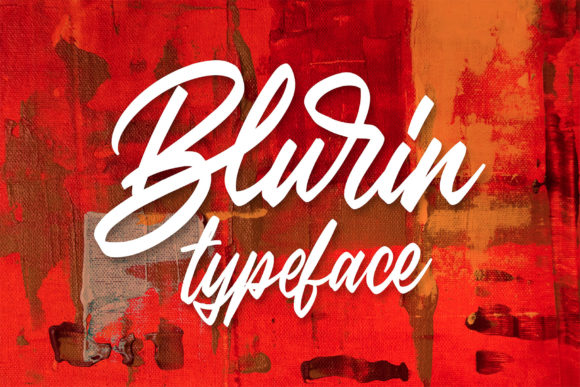
The Blurin Font: A Designer’s New Best Friend
I’ll never forget the struggle I faced while working on a wedding invitation project. My client wanted a font that was both elegant and modern, but I just couldn’t seem to find the perfect fit. That was until I stumbled upon the Blurin font. With its gorgeous handwritten style and classy calligraphic influences, it quickly became my go-to choice. In this article, I’ll share my love for Blurin, its features, and how to make the most of it in your designs.
An Honest Review of Blurin Font
What I Love About Blurin ✨
• 💫 Beautifully crafted handwritten style with a touch of sophistication
• ✅ Highly versatile and suitable for various design projects, from wedding invitations to branding materials
• 🔥 Maintains a contemporary and fresh feel while paying homage to traditional calligraphy
• 👍 Easy to read and works well in both digital and print formats
• ⚠️ Some users may find the font a bit too ornate for very casual or playful projects
• 🤔 Limited availability of certain OpenType features in older software or platforms
One of the standout features of Blurin is its support for OpenType features, glyphs, and stylistic alternates. These features allow you to add an extra layer of creativity to your designs. Some common OpenType features you can explore in Blurin include:
• Ligatures: Combine certain letter pairs for a more elegant look
• Stylistic alternates: Switch between different font styles to add variety to your text
• Glyphs: Access additional characters, such as flourishes or swashes, to enhance your design
The Story Behind Blurin
Blurin was designed with the goal of creating a font that was both elegant and modern. The designer, inspired by traditional calligraphy, sought to craft a font that would be versatile and easy to read. With its beautiful handwritten style and classy influences, Blurin has quickly become a top choice for designers and crafters alike.
Font Name Blurin Font
Author Colative
Q: What type of projects is Blurin best suited for?
A: Blurin is a versatile font suitable for various design projects, including wedding invitations, branding materials, packaging, and more.
Q: Does Blurin support OpenType features?
A: Yes, Blurin supports OpenType features, including ligatures, stylistic alternates, and glyphs.